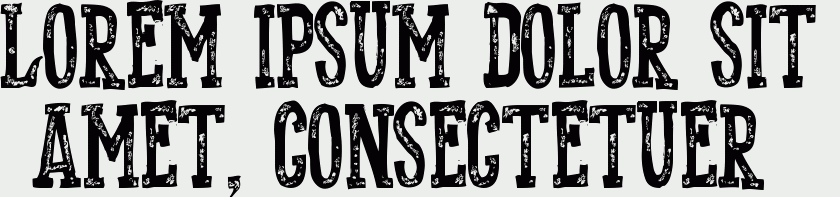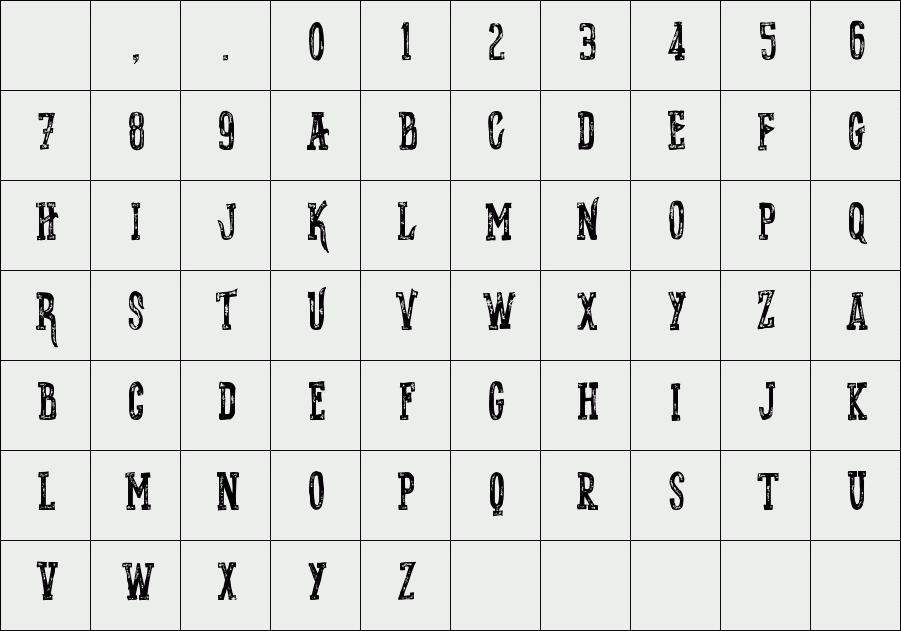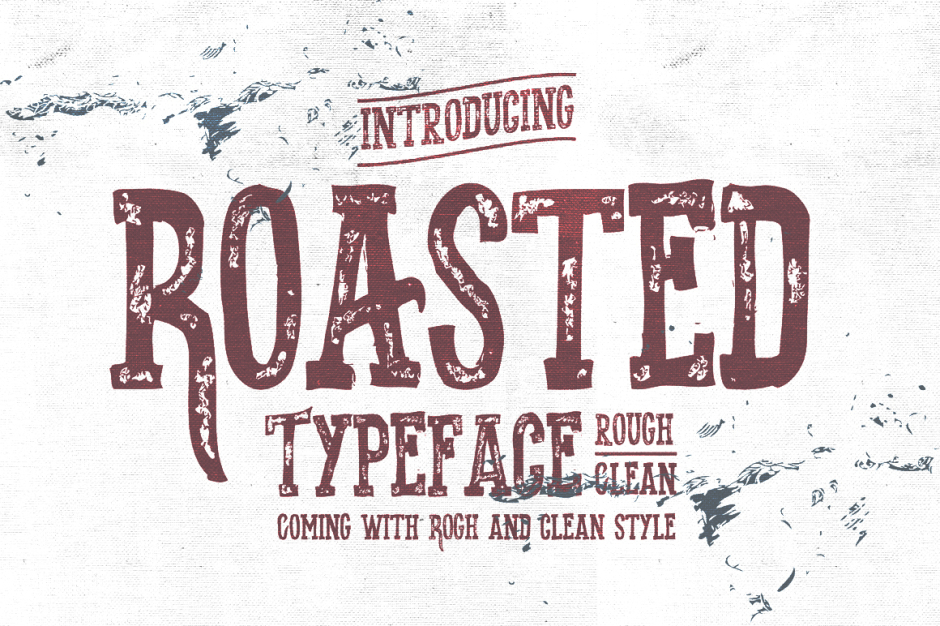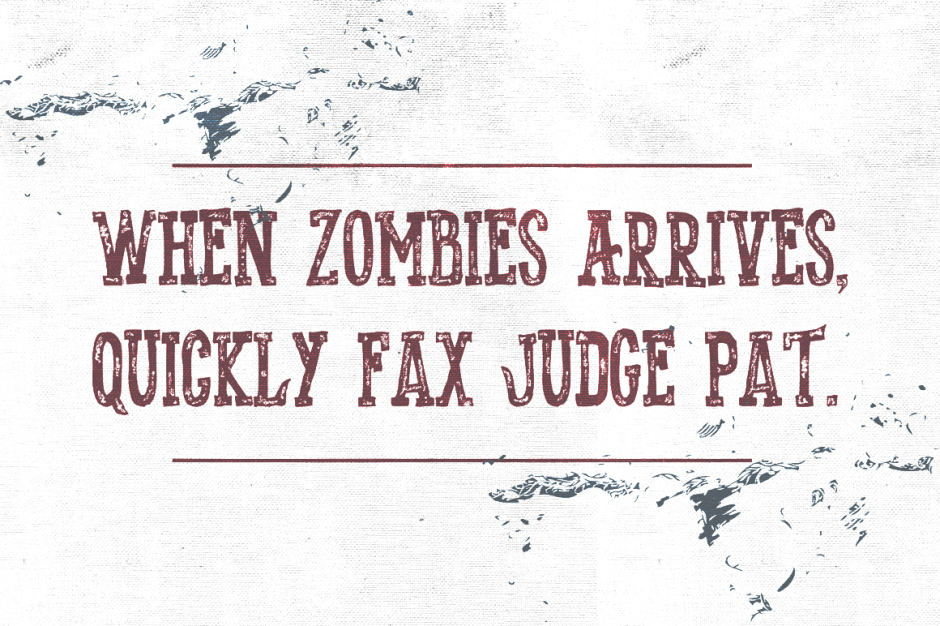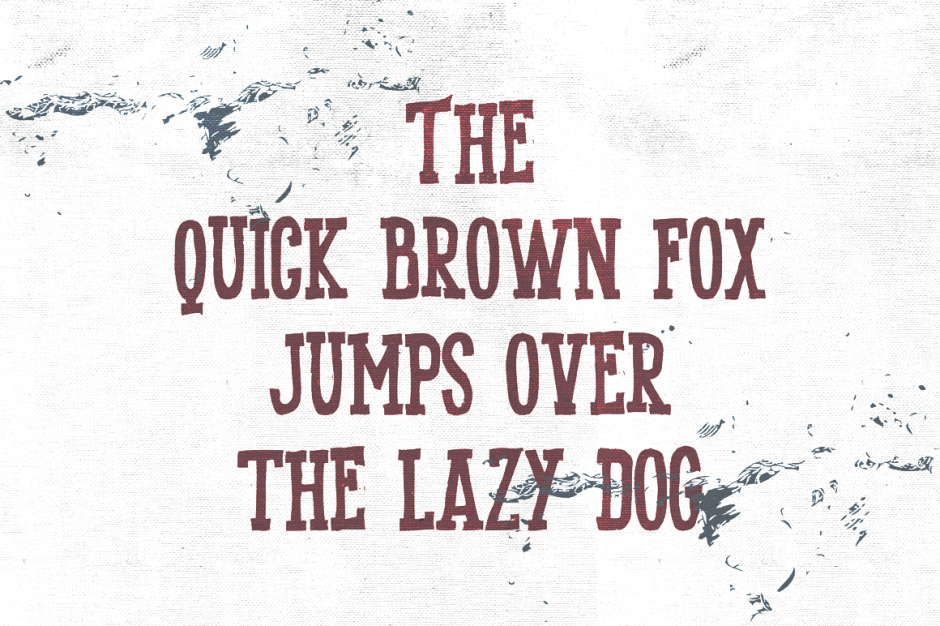
Roasted typeface
Roasted typeface is a hand drawn, hand made font with 2 different styles, rough and clean style, choose your style to fix to your design projects. it's perfect for your vintage design projects with natural hand drawn style.